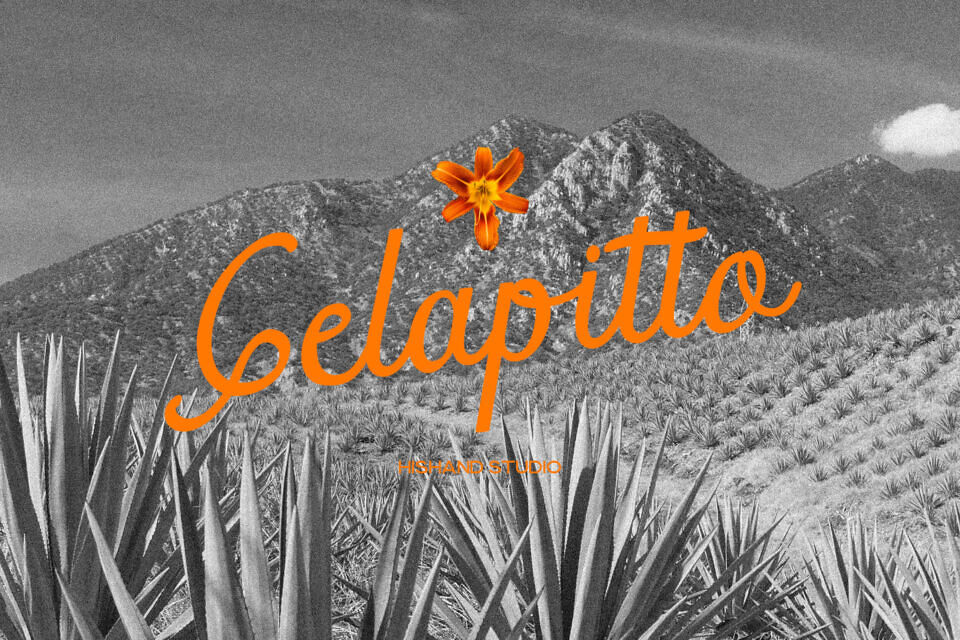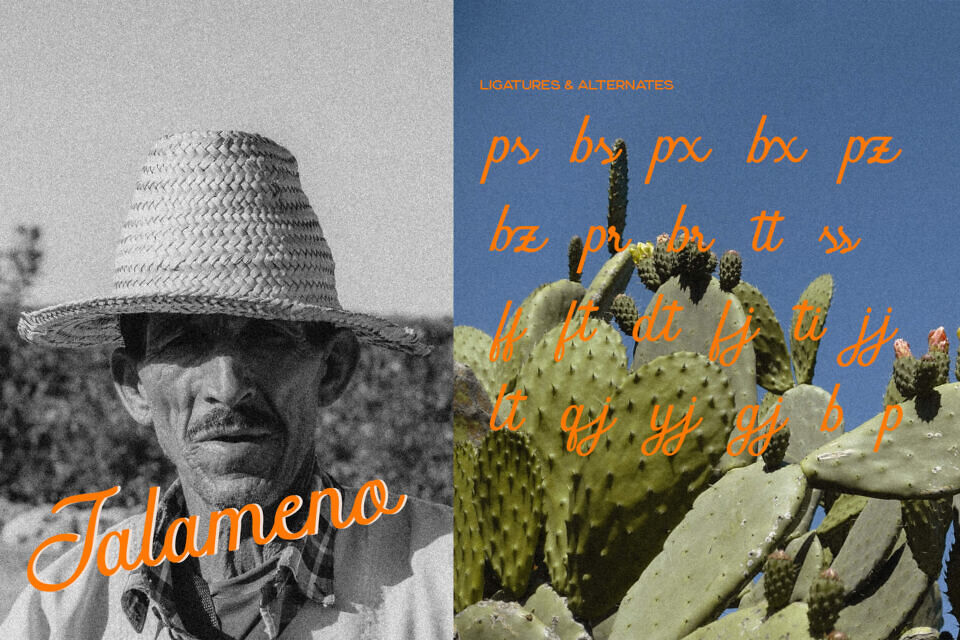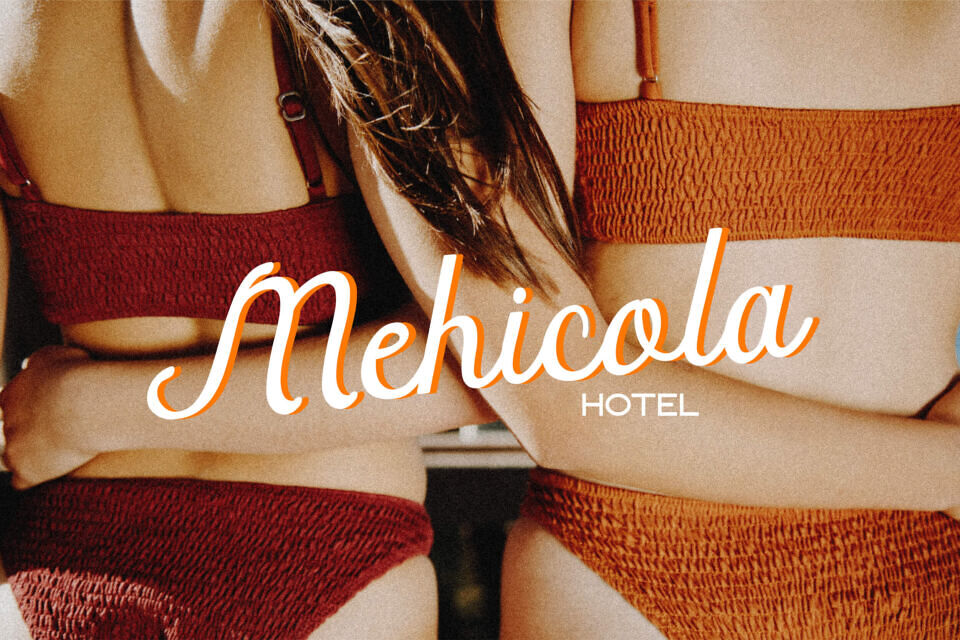
Gelapitto Font
Gelapitto is a charming handwritten script font that carries a warm, natural flow in every stroke. Its smooth curves and gentle loops create an inviting rhythm that feels expressive and effortlessly stylish. Each letterform is drawn with a sense of movement and personality, capturing the essence of handwriting while maintaining a clean, modern structure.
The font strikes a thoughtful balance between elegance and playfulness, giving it a distinctive character without ever becoming overwhelming or overly decorative. Gelapitto font has a soft, handcrafted touch that makes each word feel thoughtfully written rather than mechanically produced, which adds a subtle emotional warmth to any design it graces.